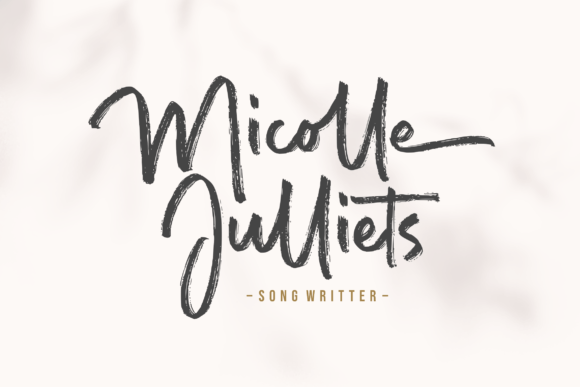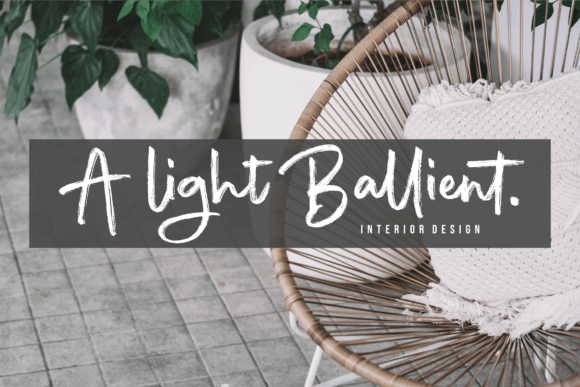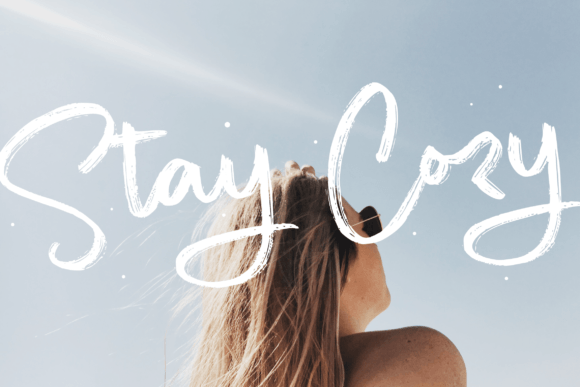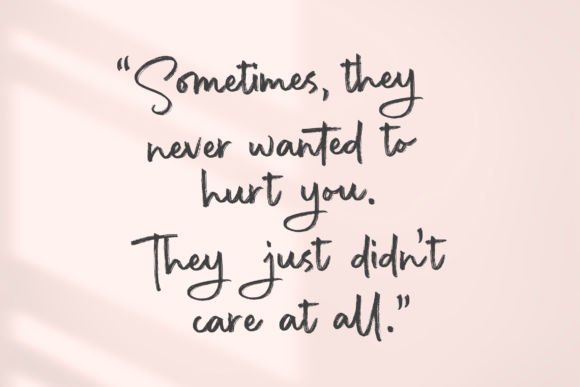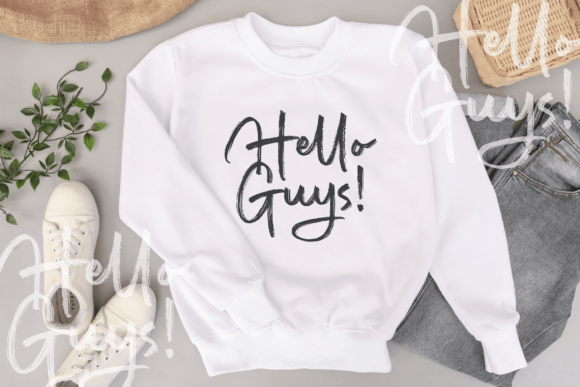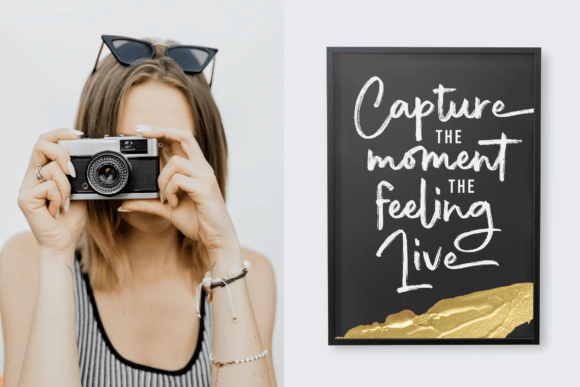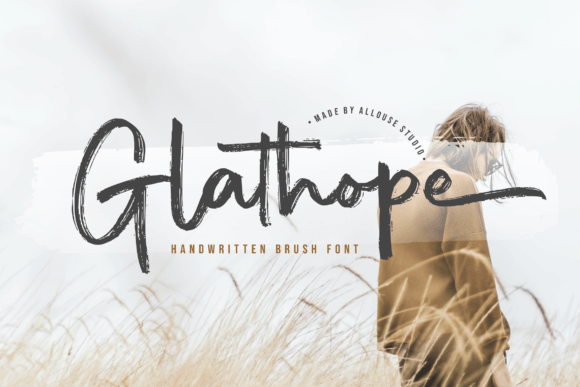
Proudly Present, Glathope: A Handwritten Brush Font for Creative Expression
Are you a designer, crafty person, or simply someone who loves to express themselves through creative projects? Look no further than Glathope, a beautiful handwritten brush font that’s perfect for a wide range of applications. In this article, we’ll dive into the world of Glathope, exploring its features, uses, and benefits, and why it’s a must-have for anyone looking to add a personal touch to their work.
What is Glathope?
Glathope is a stunning handwritten brush font that’s designed to bring a touch of elegance and sophistication to any project. With its unique blend of classic and modern elements, Glathope is the perfect choice for anyone looking to add a personal touch to their work. Whether you’re working on product packaging, branding projects, magazines, social media, weddings, or simply want to express yourself through words, Glathope is the ideal font for you.
Features of Glathope
So, what makes Glathope so special? Here are just a few of its key features:
- Handwritten Brush Style: Glathope boasts a beautiful handwritten brush style that’s both elegant and expressive.
- Unique Character Set: With a unique character set, Glathope offers a wide range of possibilities for creative expression.
- Perfect for Creative Projects: Whether you’re working on product packaging, branding projects, or simply want to create something special, Glathope is the perfect choice.
Uses of Glathope
So, what can you use Glathope for? The possibilities are endless! Here are just a few ideas to get you started:
- Product Packaging: Add a personal touch to your product packaging with Glathope’s elegant handwritten brush style.
- Branding Projects: Create a lasting impression with Glathope’s unique character set and classic-modern style.
- Magazines and Social Media: Use Glathope to add a touch of sophistication to your magazine articles or social media posts.
- Weddings and Special Occasions: Make your wedding or special occasion stationery truly unforgettable with Glathope’s beautiful handwritten brush style.
Benefits of Using Glathope
So, why choose Glathope over other fonts? Here are just a few benefits of using Glathope:
- Easy to Read: Glathope’s clear and elegant style makes it easy to read, even in small sizes.
- Highly Versatile: With its unique character set and classic-modern style, Glathope can be used for a wide range of projects and applications.
- Time-Saving: With Glathope, you can create professional-looking projects in no time, saving you time and effort.
Tips for Using Glathope
Here are a few tips for getting the most out of Glathope:
- Experiment with Different Sizes: Glathope looks great in a range of sizes, from small and delicate to large and bold.
- Pair with Other Fonts: Try pairing Glathope with other fonts to create a unique and eye-catching combination.
- Use on Different Backgrounds: Glathope looks great on a range of backgrounds, from light and subtle to dark and bold.
In conclusion, Glathope is a beautiful handwritten brush font that’s perfect for anyone looking to add a personal touch to their creative projects. With its unique character set, classic-modern style, and highly versatile design, Glathope is the ideal choice for designers, crafters, and anyone looking to express themselves through words. So why wait? Download Glathope today and start creating something truly special!